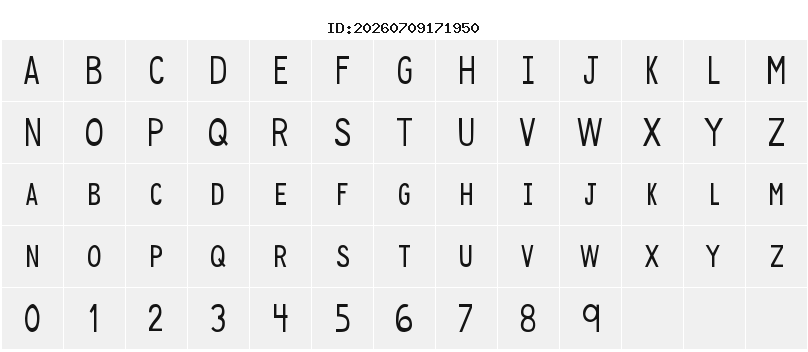
• Font Name: DJB Speak Up
• Designer: Darcy Baldwin
About DJB Speak Up.ttf
DJB Speak Up.ttf is a modern, elegant sans-serif font designed for ultimate readability and visual harmony. Perfect for branding, headlines, web design, and print materials.